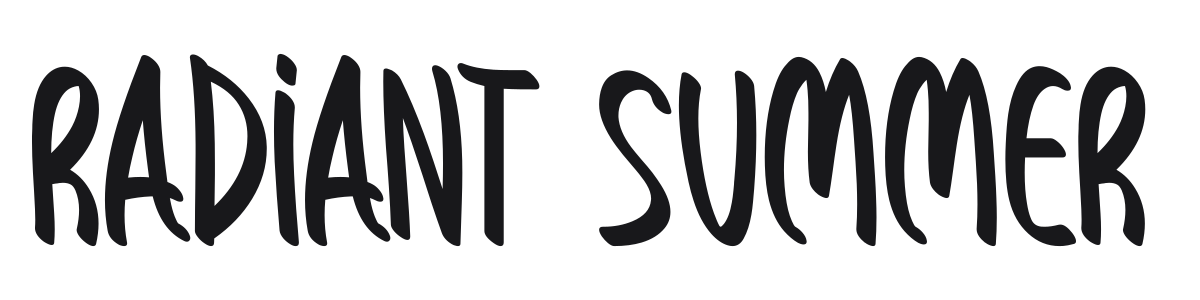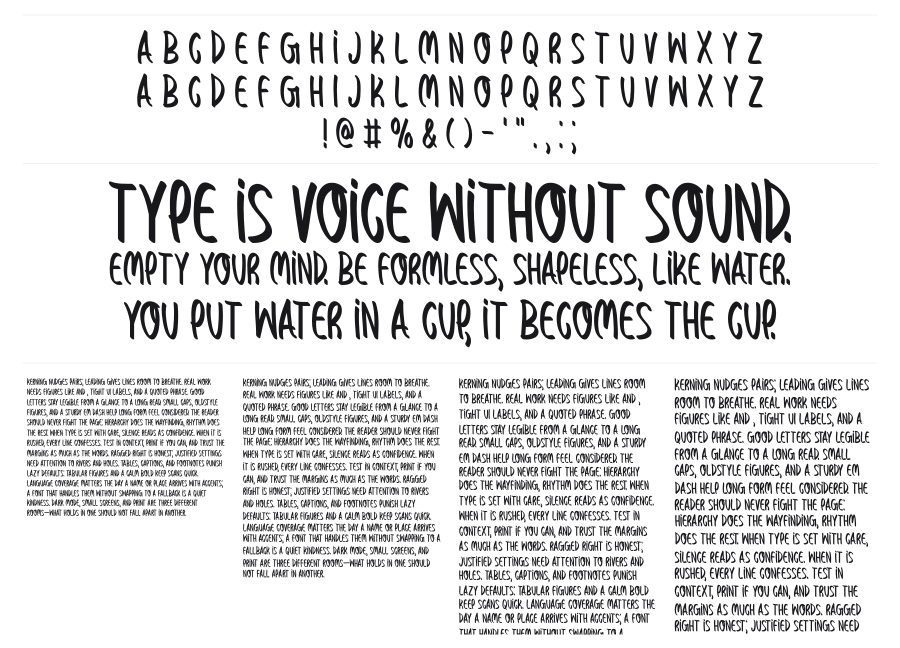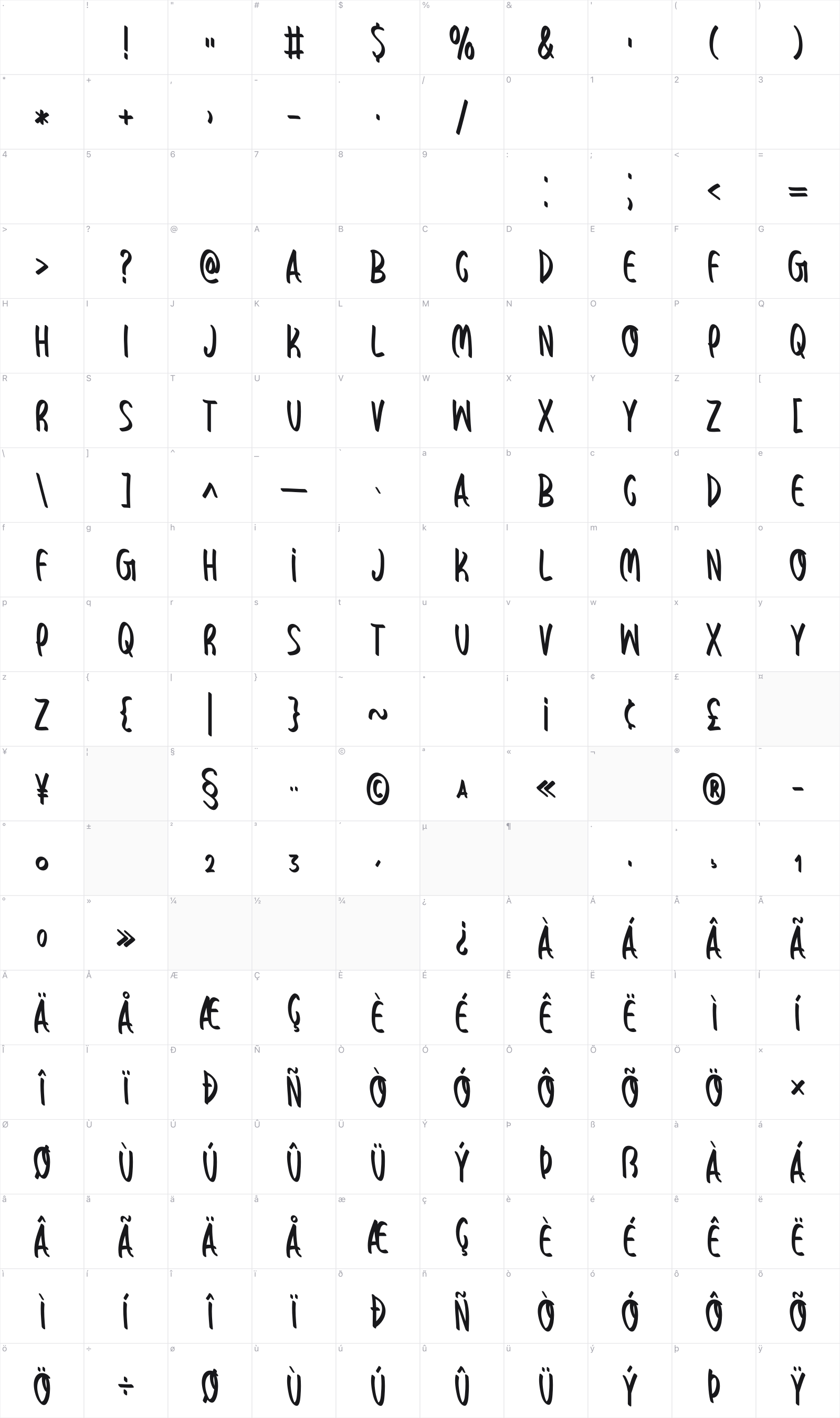
Radiant Summer
Radiant Summer is a bold, hand-drawn display font with chunky rounded strokes and an unmistakably casual personality. The irregular stroke weights and organic character shapes give it the feel of confident marker lettering, loose and lively without being sloppy. It works well for titles, packaging, and anywhere the tone needs to feel warm and approachable.